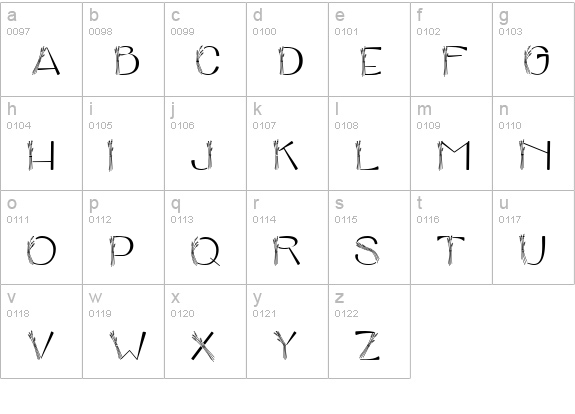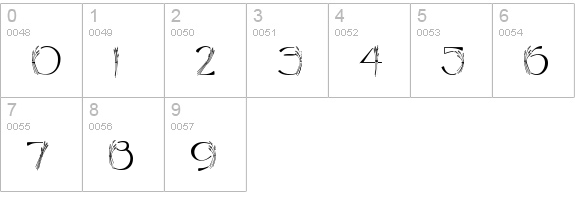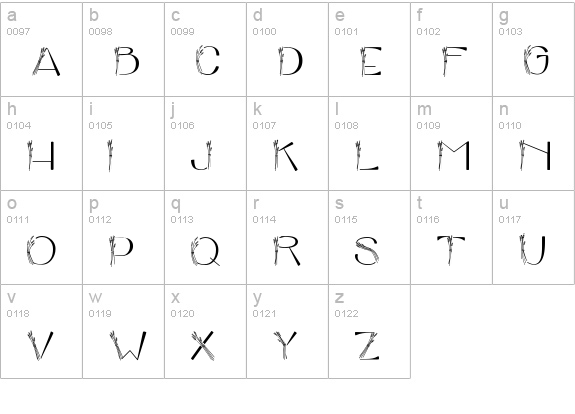
CK Harvest Font Details
CK Harvest is a charming and versatile font that captures the essence of rustic elegance. Its handcrafted feel and organic strokes give it a warm and inviting appeal, perfect for a wide range of design projects. Inspired by the beauty of nature, CK Harvest brings a touch of authenticity and character to any creative endeavor. Best of all, CK Harvest is available for free download at FontsMarket.com. This means you can easily incorporate this stunning font into your designs without breaking the bank. Whether you're working on a branding project, invitations, or social media graphics, CK Harvest is sure to add a touch of personality and style. Download it today and elevate your design game with this delightful typeface.